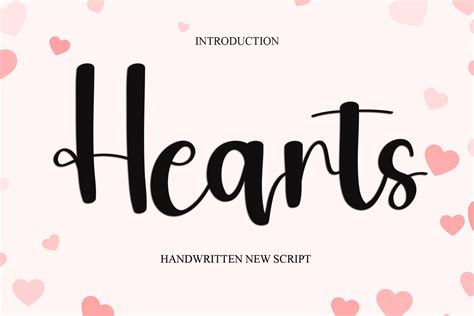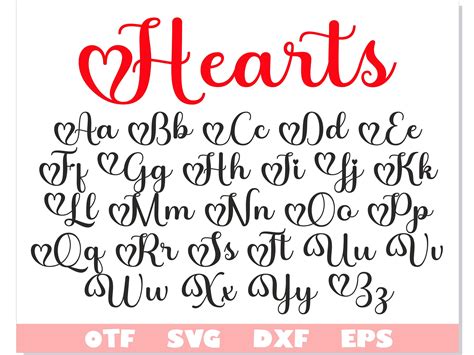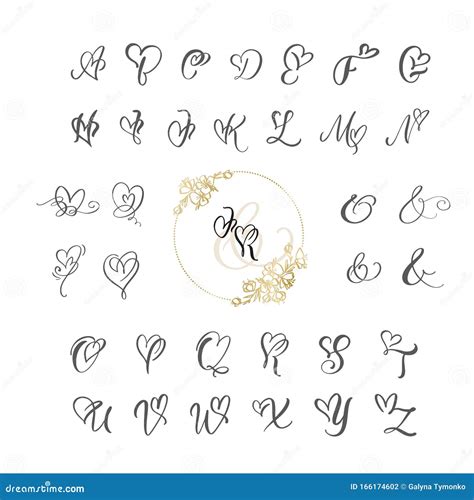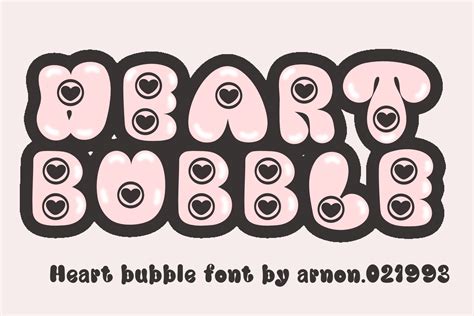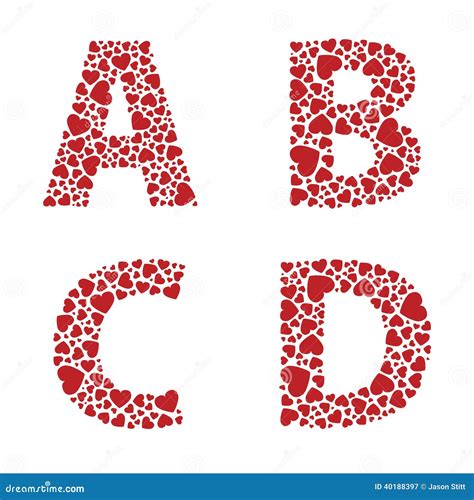
Designers and originative enthusiasts oftentimes seek unequaled ways to express philia and warmth in their projects, create Heart Font Letters a quintessential element in visual communicating. Whether you are craft a heartfelt wedding invitation, designing a Valentine's Day flyer, or make custom-made societal medium graphics, these ornamental typeface add a layer of whimsy and romanticistic spell that standard typography simply can not reduplicate. By integrate anatomy like ticker directly into the apoplexy of the characters or as pernicious embellishments, these fount function as a powerful creature for optical storytelling, turn champaign text into a memorable experience that resonates deeply with the looker.
The Aesthetic Appeal of Heart-Themed Typography
The popularity of Heart Font Letters root from their power to evoke contiguous emotional responses. When citizenry see a heart, they subconsciously associate the schoolbook with love, fear, and sincerity. This is why these fonts are indispensable in the domain of graphical design and crafting.
Why Use Decorative Typography?
- Emotional Connection: Instantly signal themes of romanticism, friendship, or rage.
- Visual Interest: Breaks the monotony of traditional serif or sans-serif fonts in branding.
- Versatility: Suitable for everything from scrapbooking and stickers to professional event signage.
- Thematic Consistency: Perfectly complements holiday-themed merchandising or personal projects like anniversary cards.
When select the correct typeface, reckon the weight and complexity of the letterforms. Some case feature large, bold heart as portion of the missive structure, while others volunteer more subtle, dainty accents. Opt the appropriate fashion control that your substance remain legible while withal capturing the want esthetic.
Good Practices for Using Heart-Style Fonts
Habituate Heart Font Letters efficaciously requires a frail proportion between style and legibility. Overusing decorative component can sometimes result to visual muddle, so it is essential to follow a few nucleus designing principles to keep professional criterion.
Design Tips for Success
- Hierarchy Affair: Use heart-embellished fonts for headers or key phrase, and joystick to a clean, clear case for the body schoolbook.
- Color Coordination: Soft pinks, deep reds, and crisp caucasian oft act best, but don't be afraid to try metallic or gradients for a modern twist.
- Spacing: These fonts much have singular kerning necessity. Manually aline the missive spacing to ensure the pump icons do not overlap or distract from the textbook.
- Demarcation: Ensure your background coloration doesn't clangor with the decorative element, especially if the baptistry features intricate cut-outs or thin line.
💡 Note: Always examine your chosen face on different ground density to secure that the frail pump shapes remain seeable and do not vanish into the design background.
Comparing Popular Styles of Heart Lettering
Not all heart-integrated baptistery are create equal. Look on the package you use, you might detect variable levels of complexity in how these lineament are render. The following table compares common categories of these creative face.
| Style | Best Used For | Visual Complexity |
|---|---|---|
| Script Hearts | Nuptials, invitations, stationary | High |
| Block Hearts | Posters, bold headlines, branding | Medium |
| Minimalist Accents | Social media posts, quote | Low |
Integrating Hearts into Custom Projects
For those who enjoy digital crafting, Heart Font Letters are a basic in programme like Cricut Design Space or Adobe Creative Cloud. Using these fount efficaciously ofttimes affect utilizing the "Glyphs" panel to access peculiar fiber that might not appear on a standard keyboard.
Many professional-grade baptistery include "ligatures", which are reflex link between letter. When you type specific pairs, the package may mechanically insert a heart contour between them. Realise how your package handles these OpenType features can salvage you significant clip during the design process.
Contain heart-themed composition into your creative workflow opens up eternal hypothesis for personalize your projects. By choosing the right font, pay attending to spacing, and maintaining a open visual hierarchy, you can efficaciously communicate heat and affection in any medium. Whether you are act on a small trade or a large-scale graphical pattern project, these stylized letters provide the gross touch of appeal that helps your employment stand out and relate with your audience. Embracing these design elements permit for a more expressive approach to inscription, control that every substance carries an extra bed of heartfelt detail and aesthetic intent.